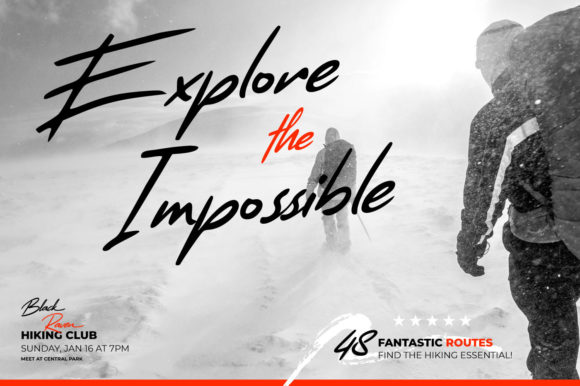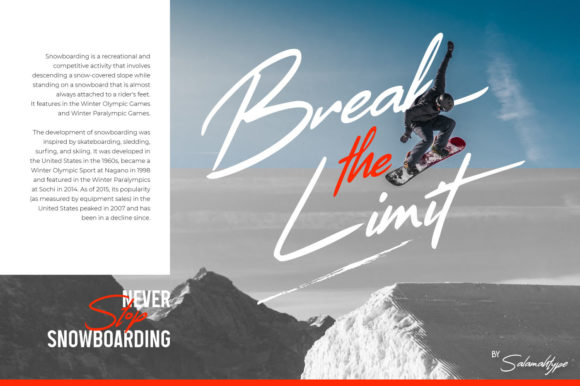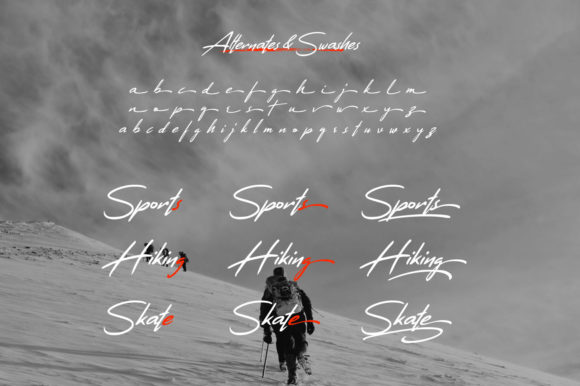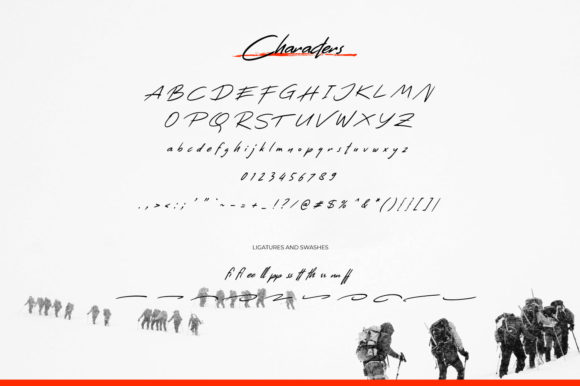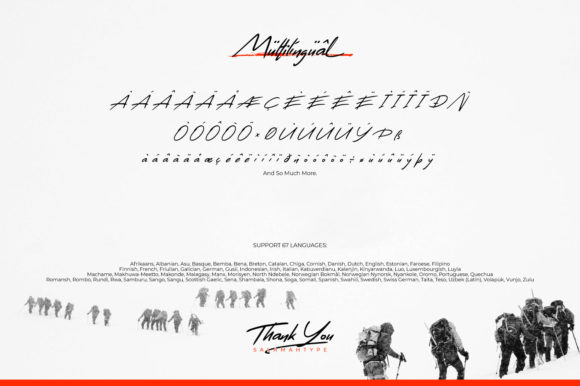
The Ultimate Guide to Black Raven Font: Unleash Your Creative Potential
I’ll never forget the time I was working on a branding project for a new coffee shop. I had spent hours perfecting the logo design, but something was missing. The font I had chosen just wasn’t doing justice to the unique vibe of the brand. That’s when I stumbled upon Black Raven Font, and it completely transformed the project. If you’re a designer, crafter, or creative hobbyist looking for a font that can elevate your work, you’re in the right place!
What Makes Black Raven Font So Special?
Black Raven is an asymmetrical and cool script font with a natural style that’s perfect for a wide range of creative projects. From branding and logos to social media posts, advertisements, product packaging, and more, this font can help you create stunning visuals that capture your audience’s attention.
What I Love About Black Raven Font ✨
- 💥 Unique and eye-catching design that’s sure to stand out
- 🎨 Highly versatile and suitable for various design projects
- 👍 Excellent for creating logos, social media graphics, and advertisements
While Black Raven Font is an excellent choice, there are a few things to keep in mind. For example, some users may find the font a bit tricky to pair with other fonts. Additionally, the font may not be suitable for body text or long-form content due to its script nature.
Another thing to consider is that Black Raven Font may require some experimentation to get the hang of using its OpenType features. However, with a little practice, you’ll be able to unlock its full potential and create stunning designs.
The Story Behind Black Raven Font
Black Raven Font was designed by a team of creatives who wanted to create a unique and versatile font that could be used for a wide range of design projects. Inspired by the mysterious and intelligent bird, the raven, the font features an asymmetrical design with a natural, hand-drawn feel. Whether you’re a designer, crafter, or creative hobbyist, Black Raven Font is sure to inspire your next project.
PUA (Private Use Area) encoding is a standard for encoding fonts that allows designers to access a wide range of glyphs and swashes. This means that users can easily access the various design elements and create stunning visuals.
Q: Is Black Raven Font suitable for body text or long-form content?
While Black Raven Font is an excellent choice for headings and titles, it may not be the best choice for body text or long-form content due to its script nature. However, you can experiment with using it for short paragraphs or quotes to add visual interest.